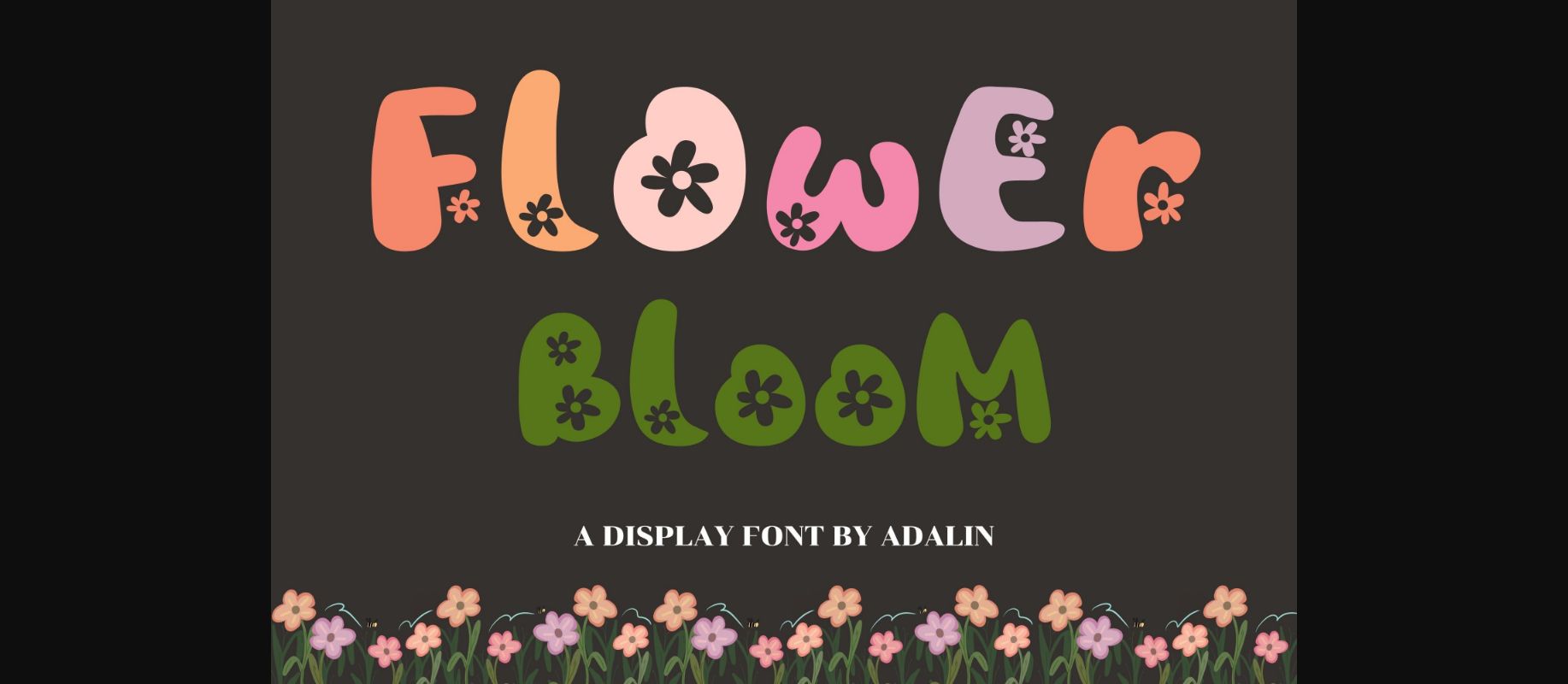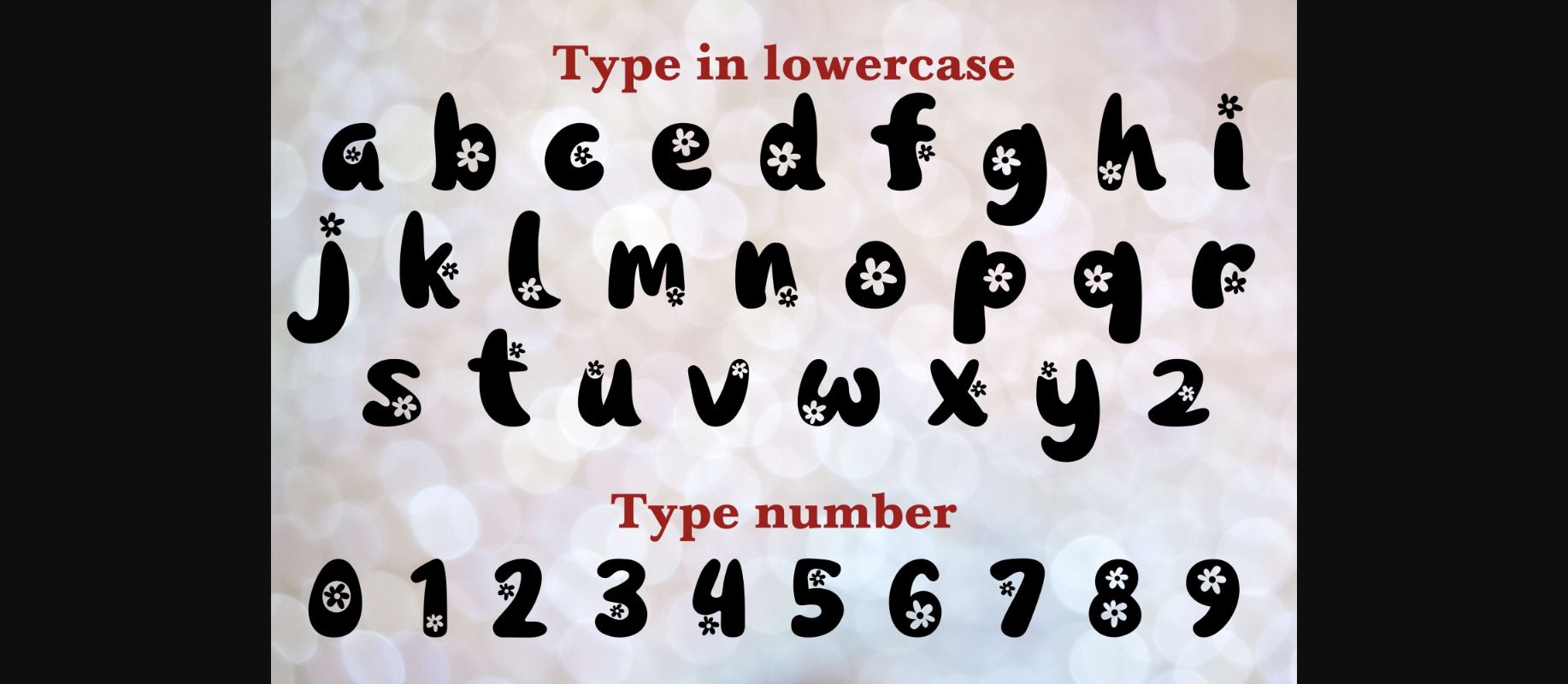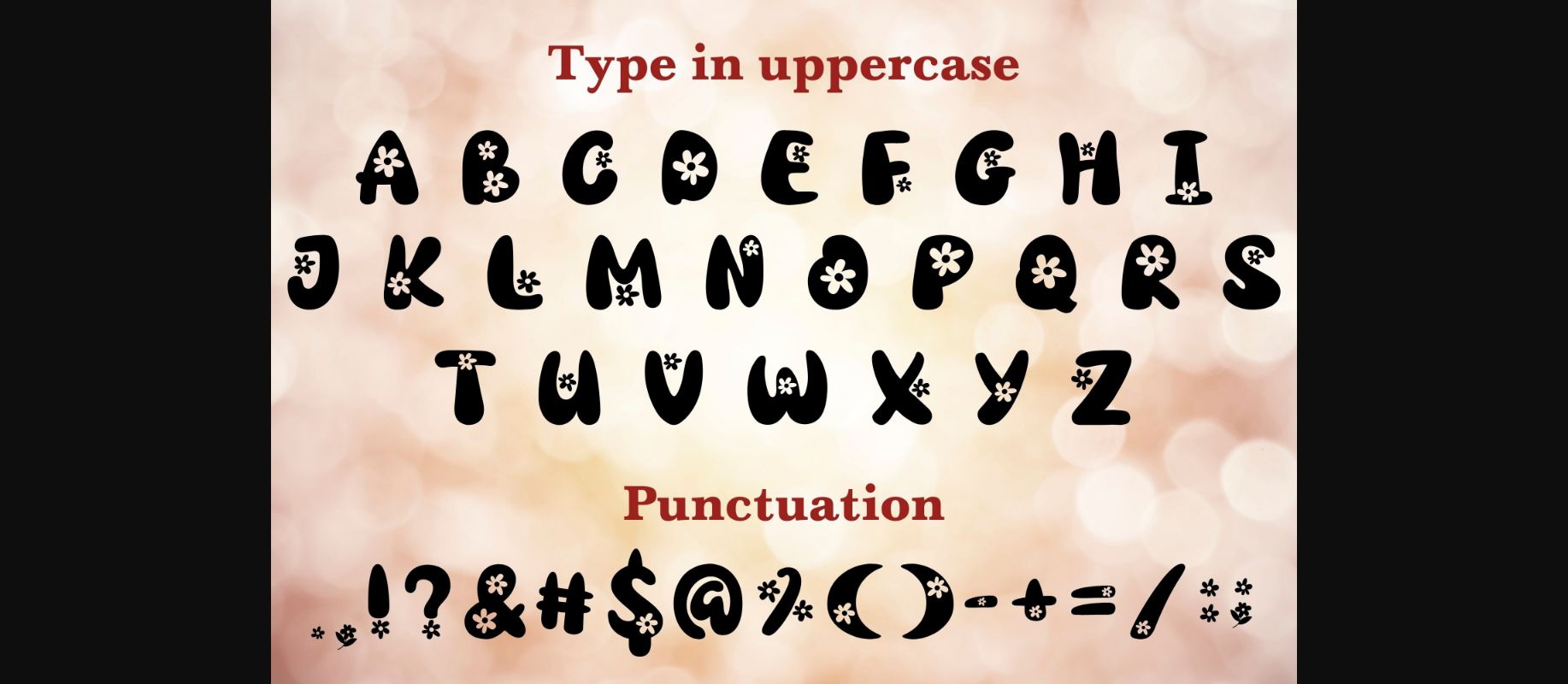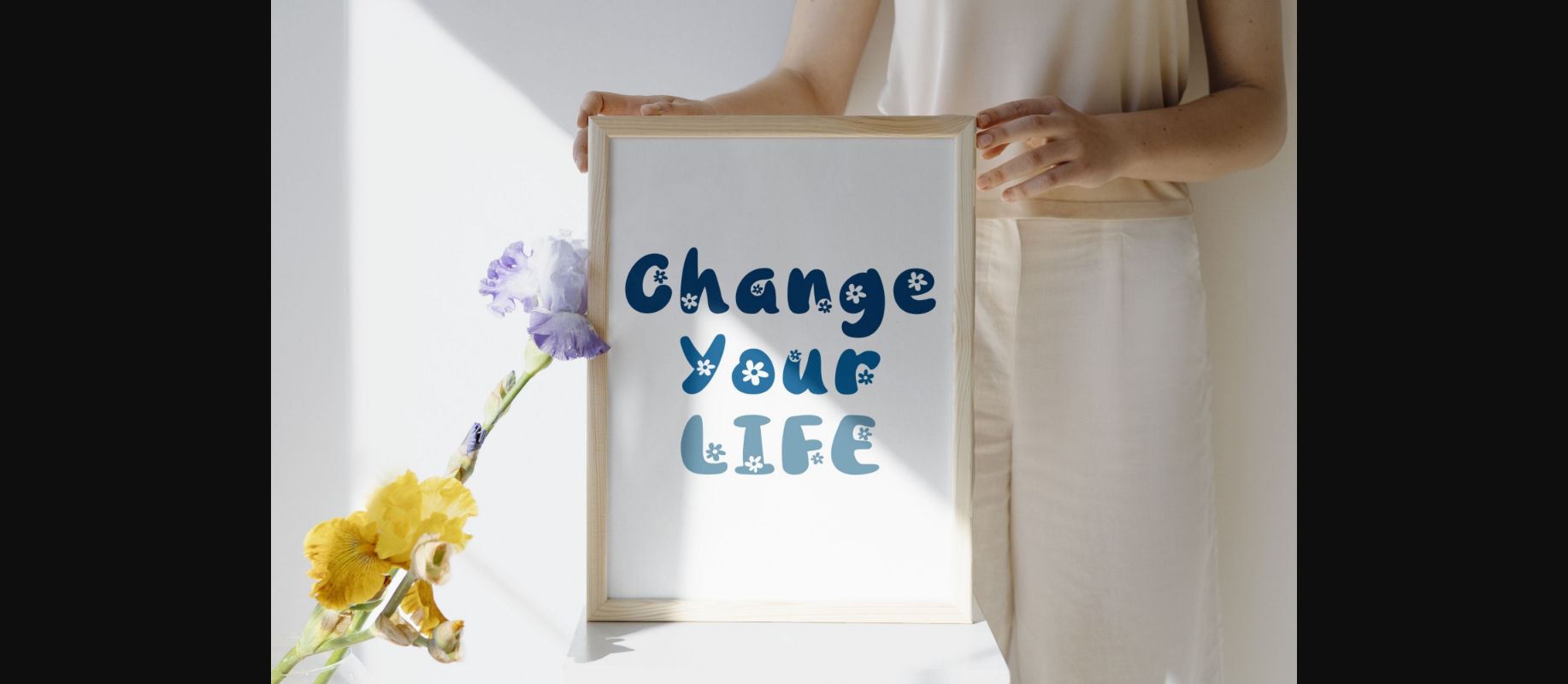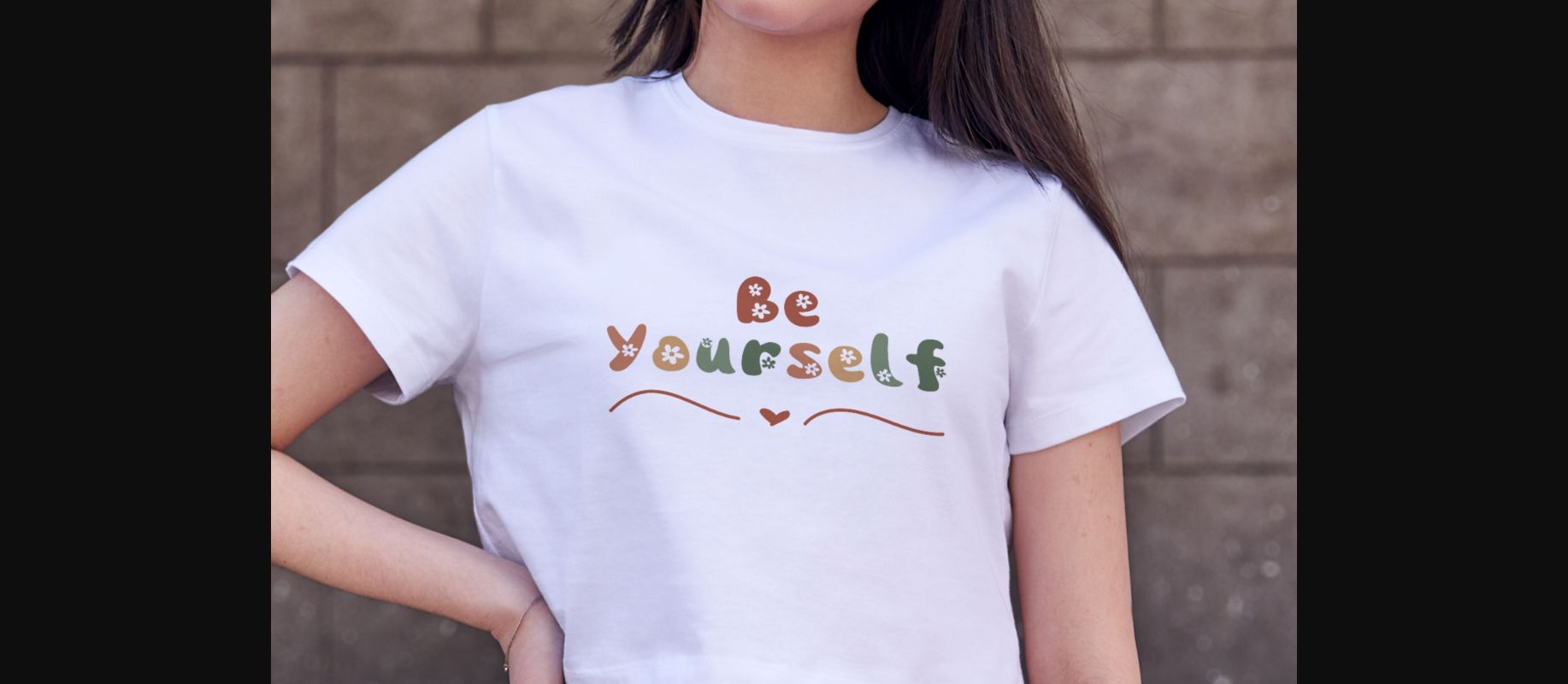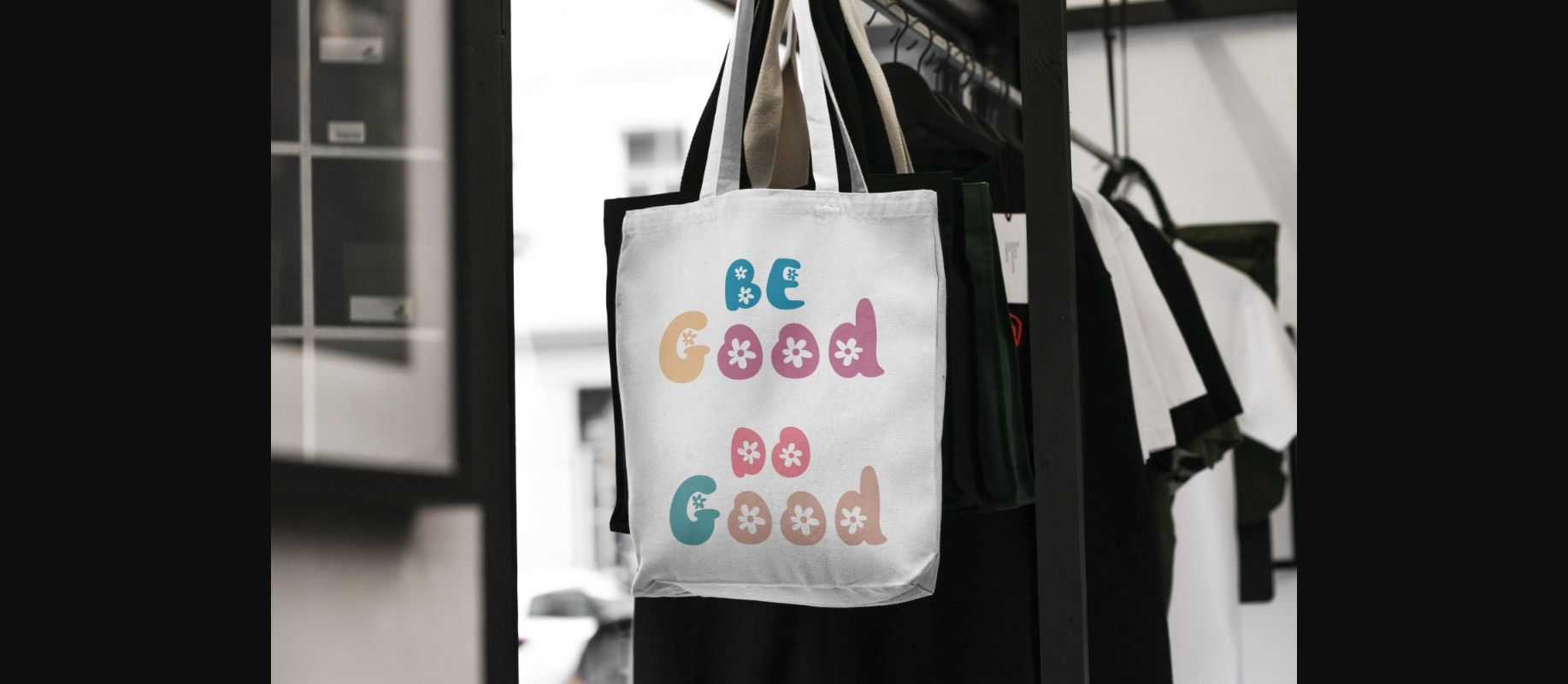
Flower Bloom is a cute decorative font ideal for crafting, and perfect for designs that need a playful, cheery accent. Flower Bloom is suitable for book covers, posters, packaging, merchandise, logotypes, and many more!